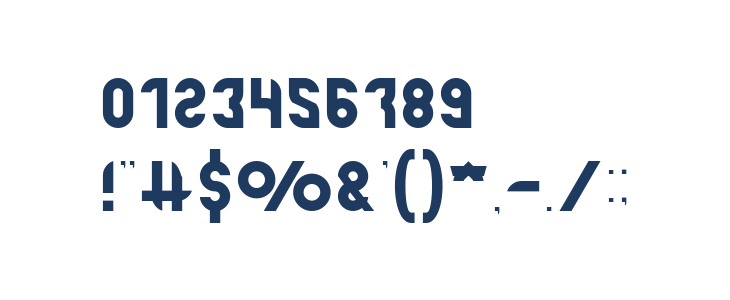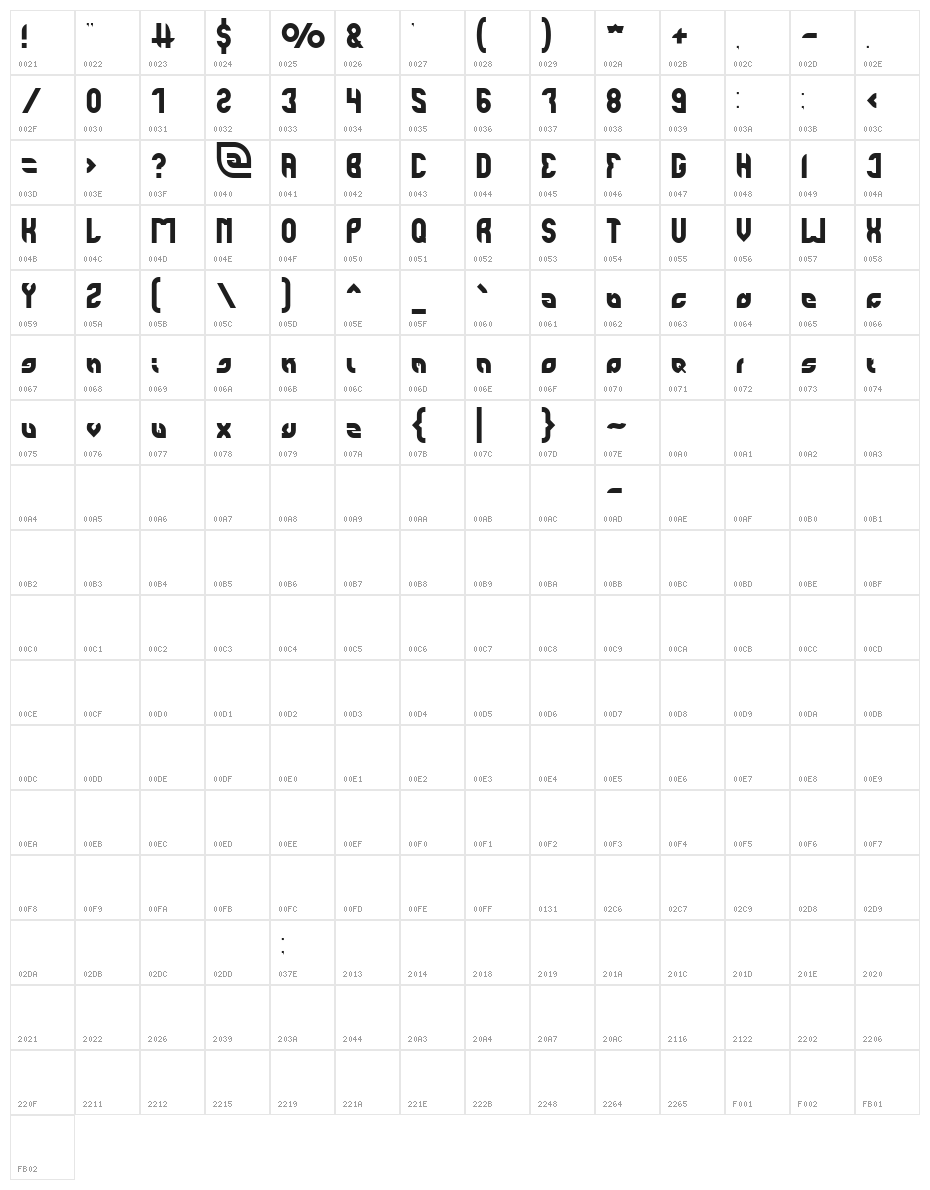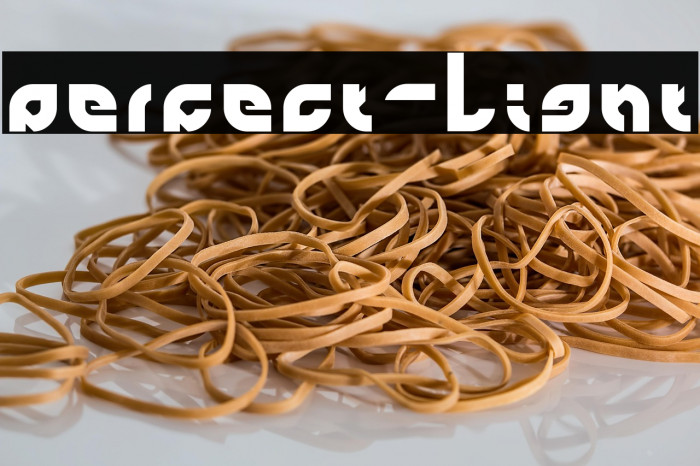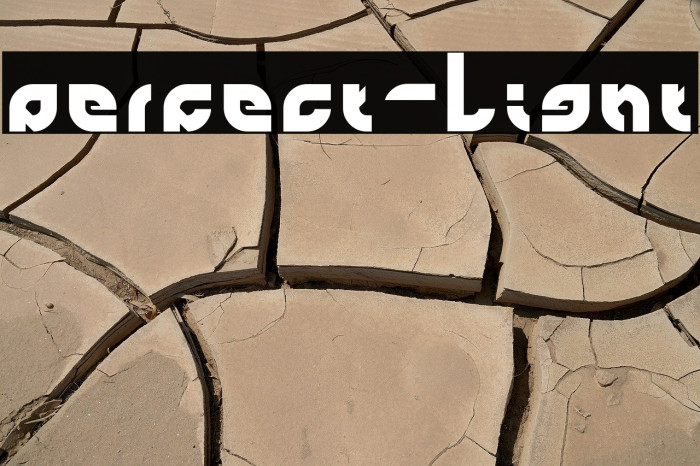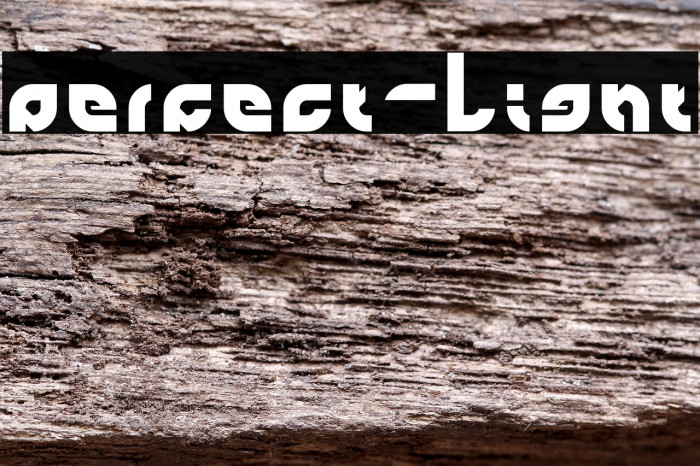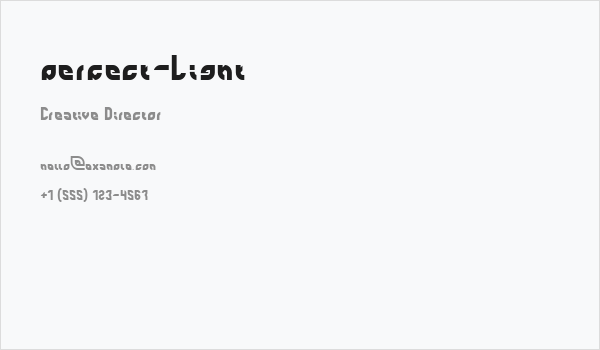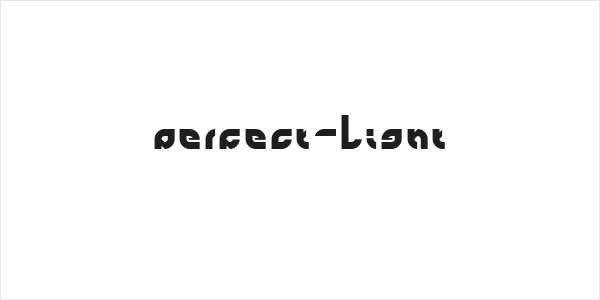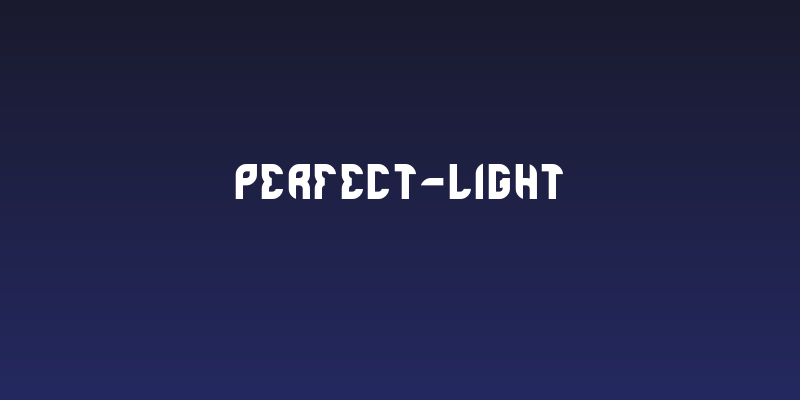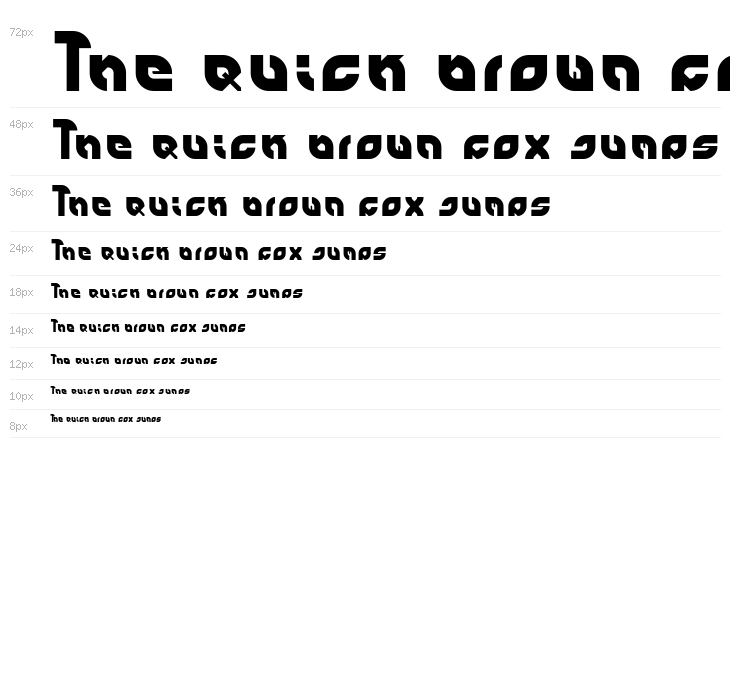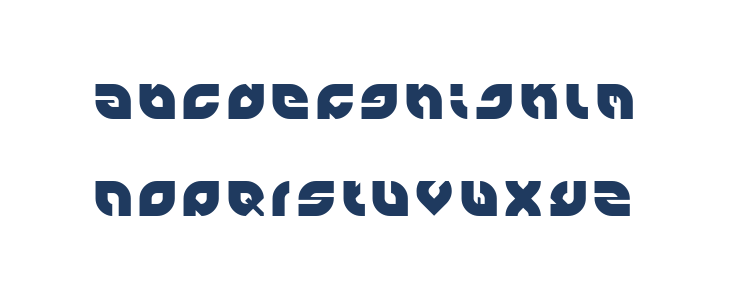
perfect-Light Font
perfect-Light Description
This font features a bold and geometric design with a futuristic flair. The characters are constructed with thick, block-like shapes that create a sense of strength and modernity. The uppercase letters are particularly striking, with angular cuts and unique forms that give them a distinct appearance. The lowercase letters maintain the same boldness, ensuring consistency throughout. Numbers and special characters follow the same design principles, making them easily recognizable and cohesive with the overall style. The font's design is both eye-catching and functional, suitable for a variety of creative applications.